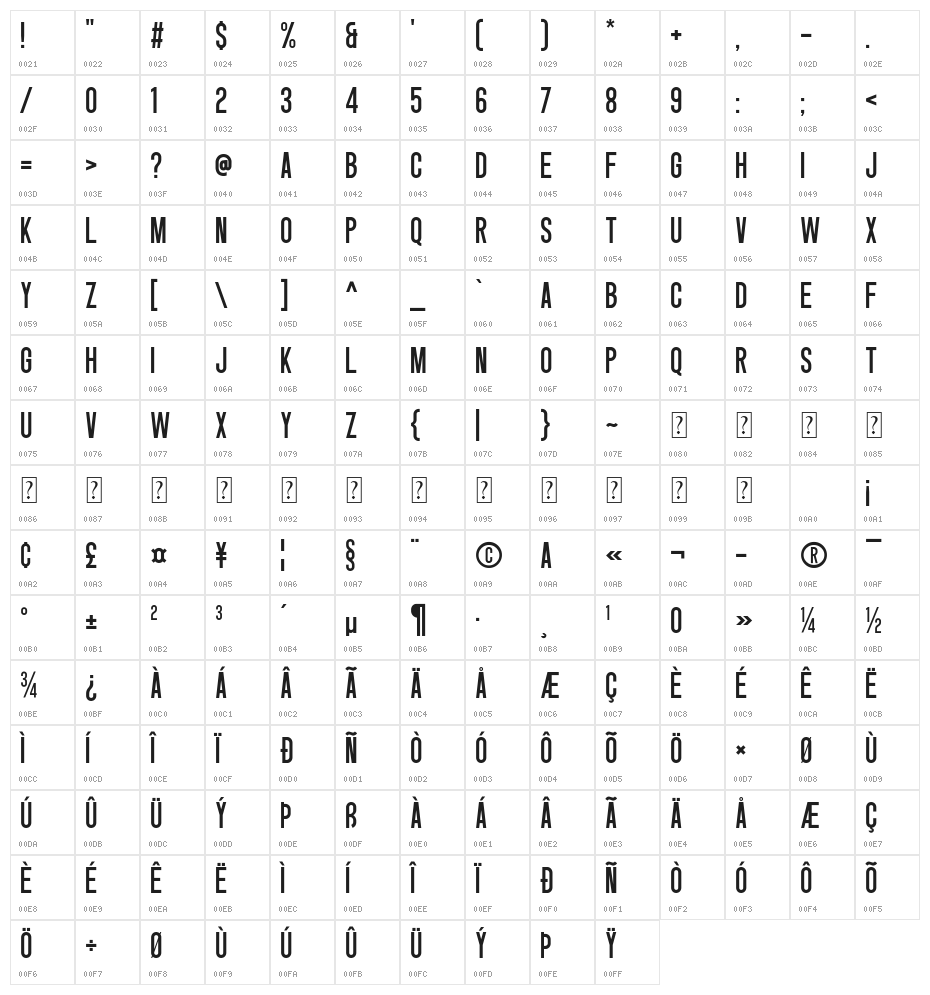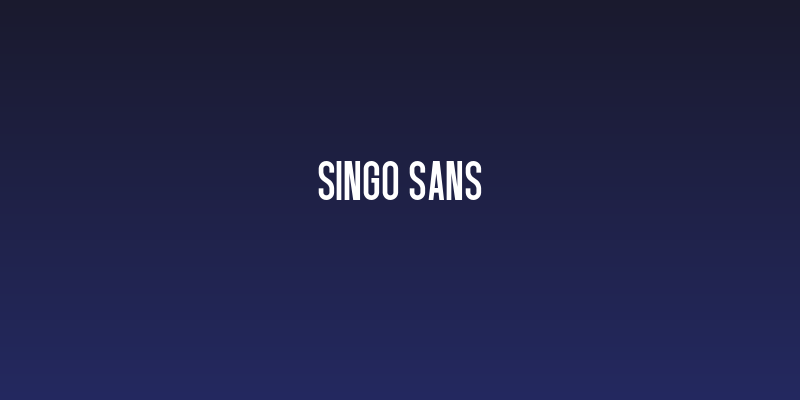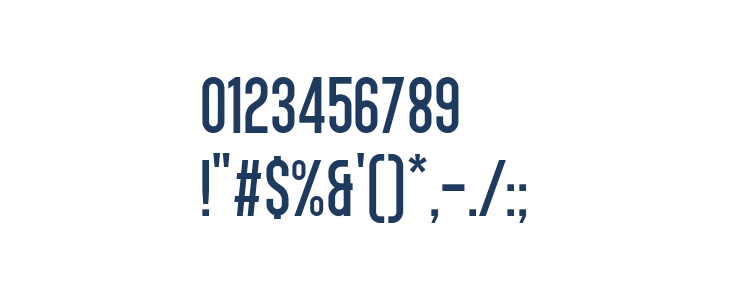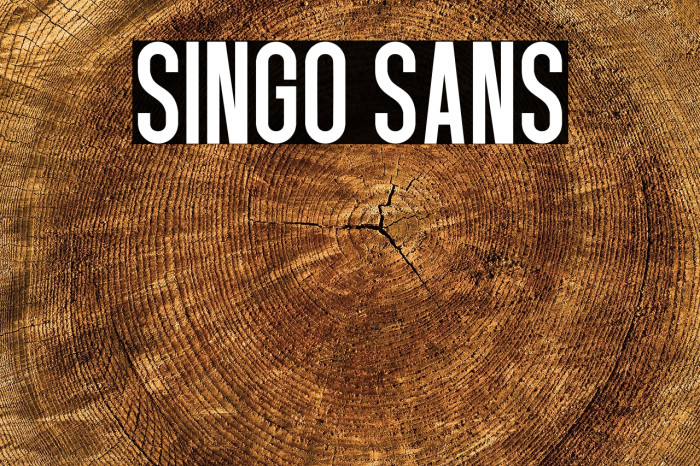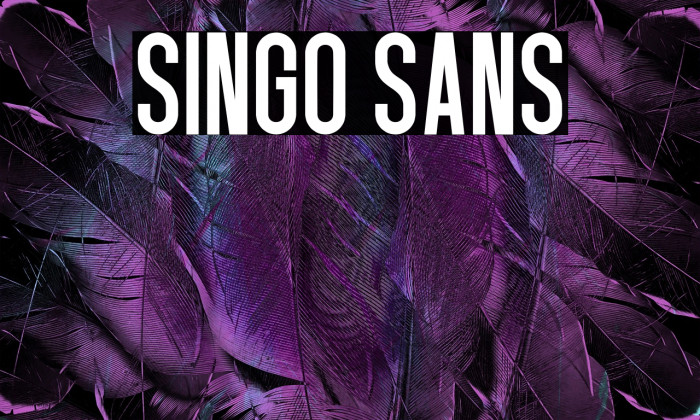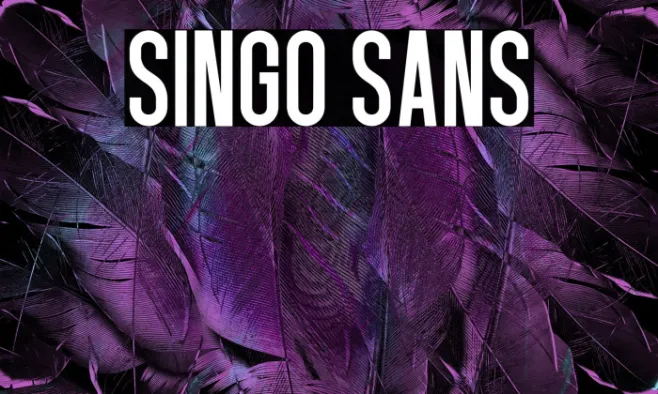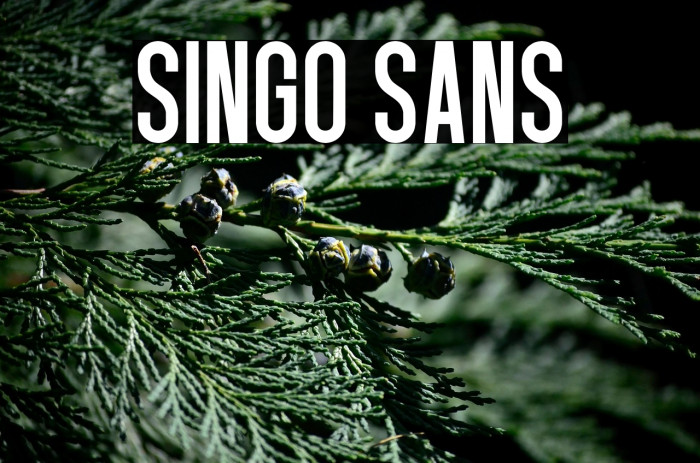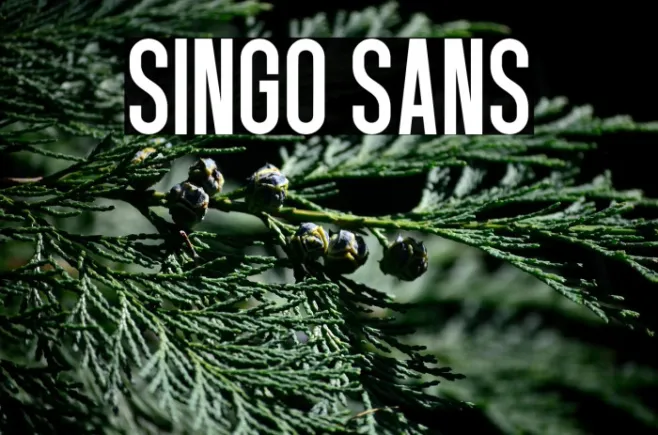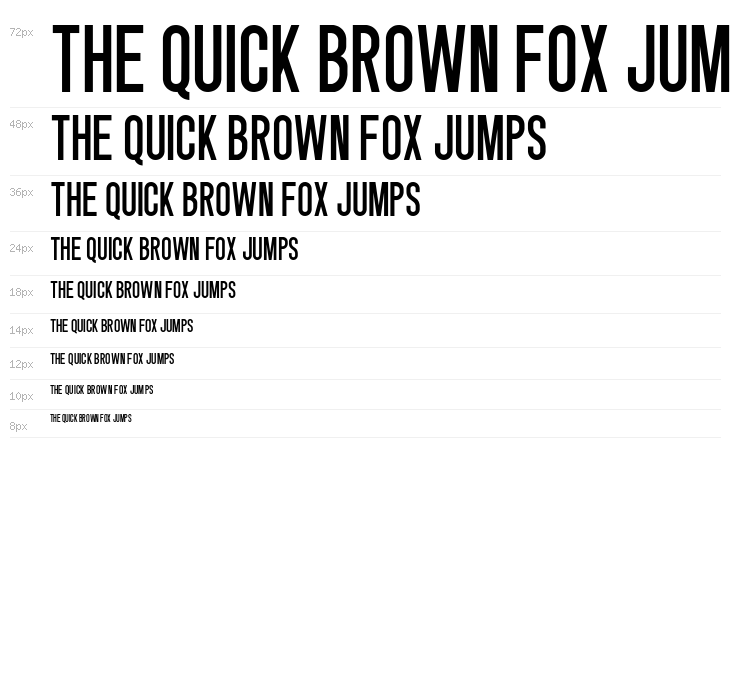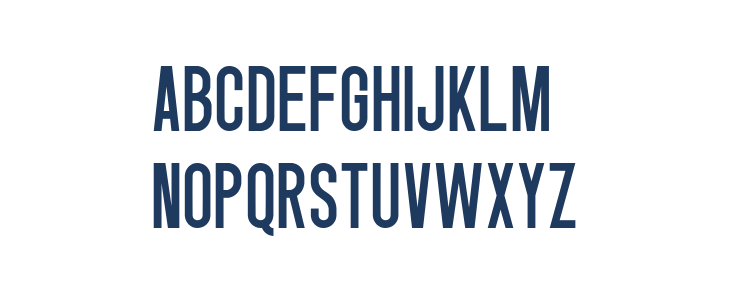
Singo Sans Font
Singo Sans Description
This font features a bold and modern sans-serif style with clean, straight lines and a uniform stroke width. The characters are tall and slightly condensed, giving a strong and impactful appearance. The uppercase letters are prominent, with a geometric structure that enhances readability. The numbers are consistent with the letterforms, maintaining the same height and weight, which ensures clarity in numerical data. The special characters are well-integrated, matching the overall aesthetic of the font. This typeface is versatile, suitable for a variety of design applications where a contemporary and assertive look is desired.
| Proposed Projects | Ideal for branding, advertising, headlines, posters, and digital media where a strong visual impact is needed. |